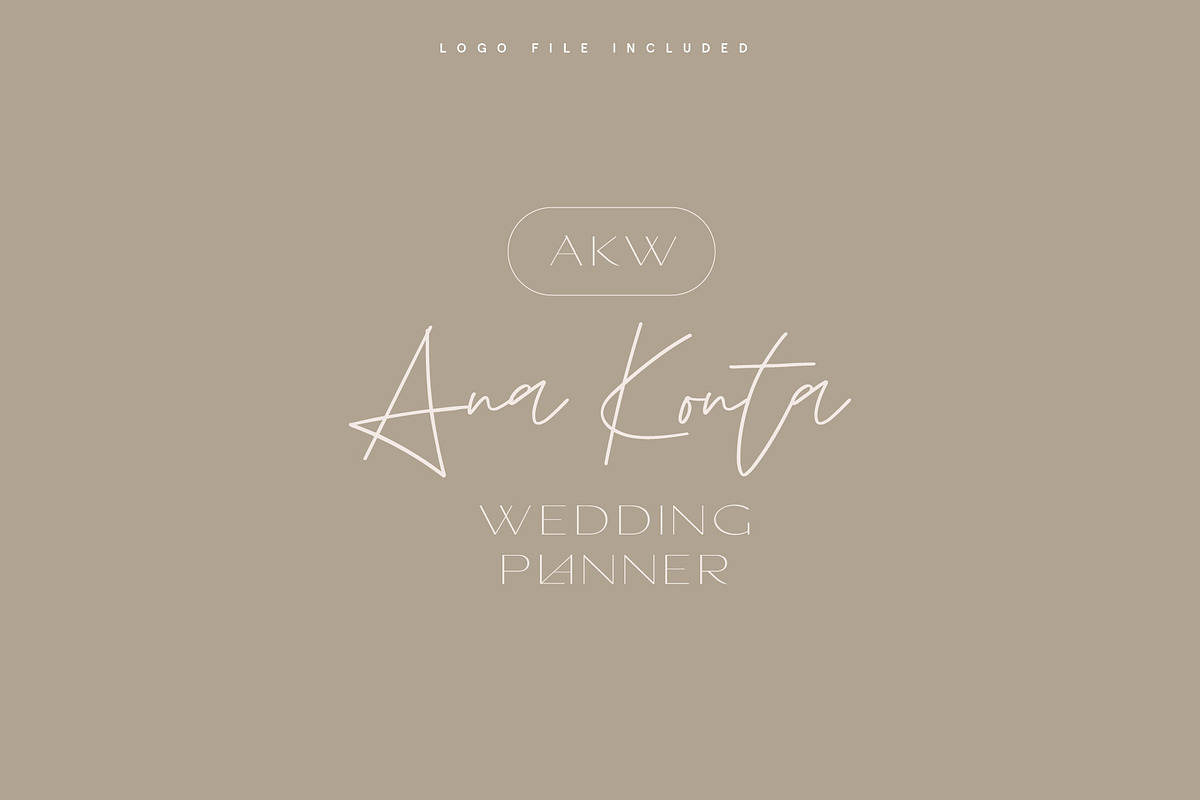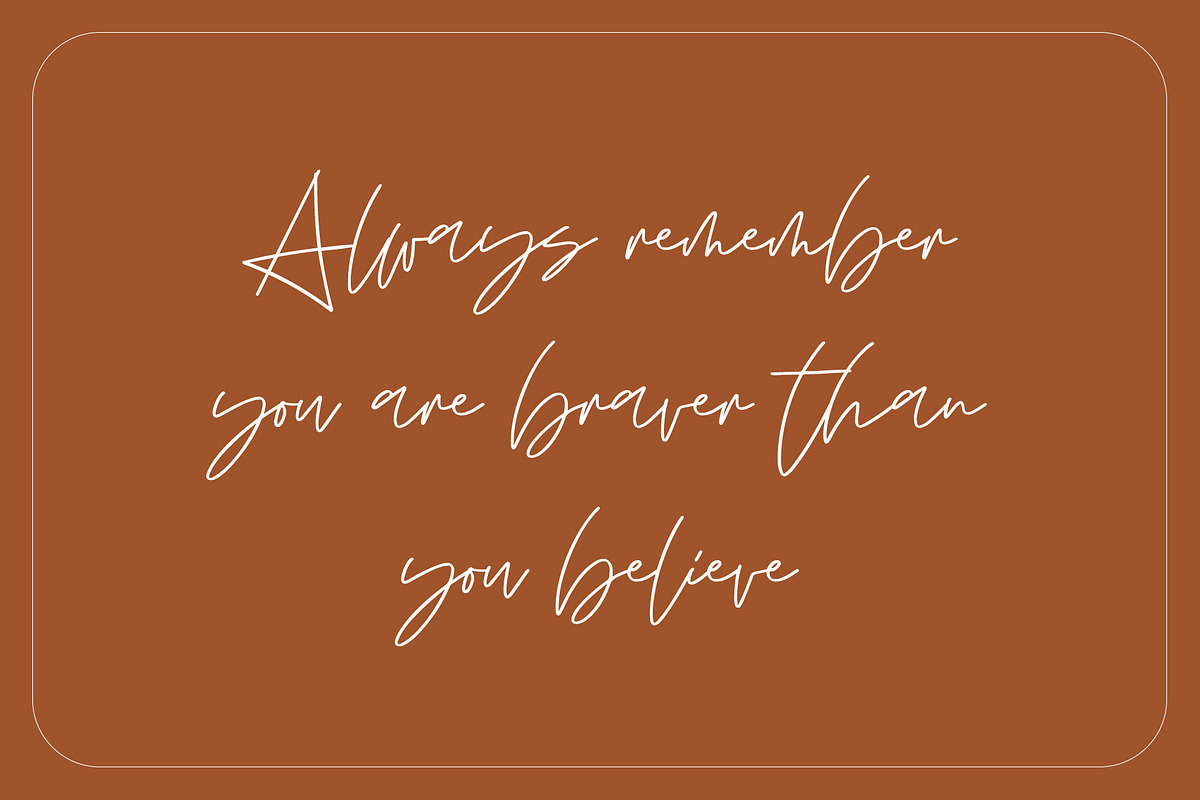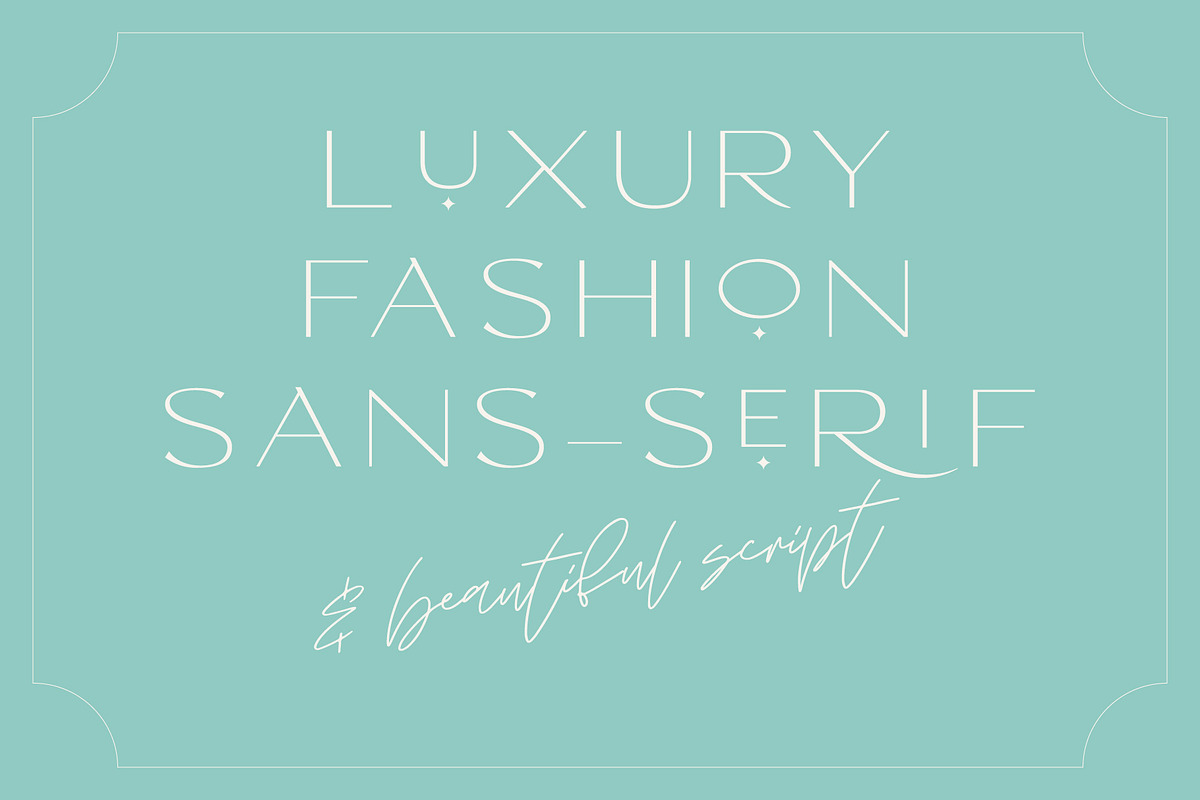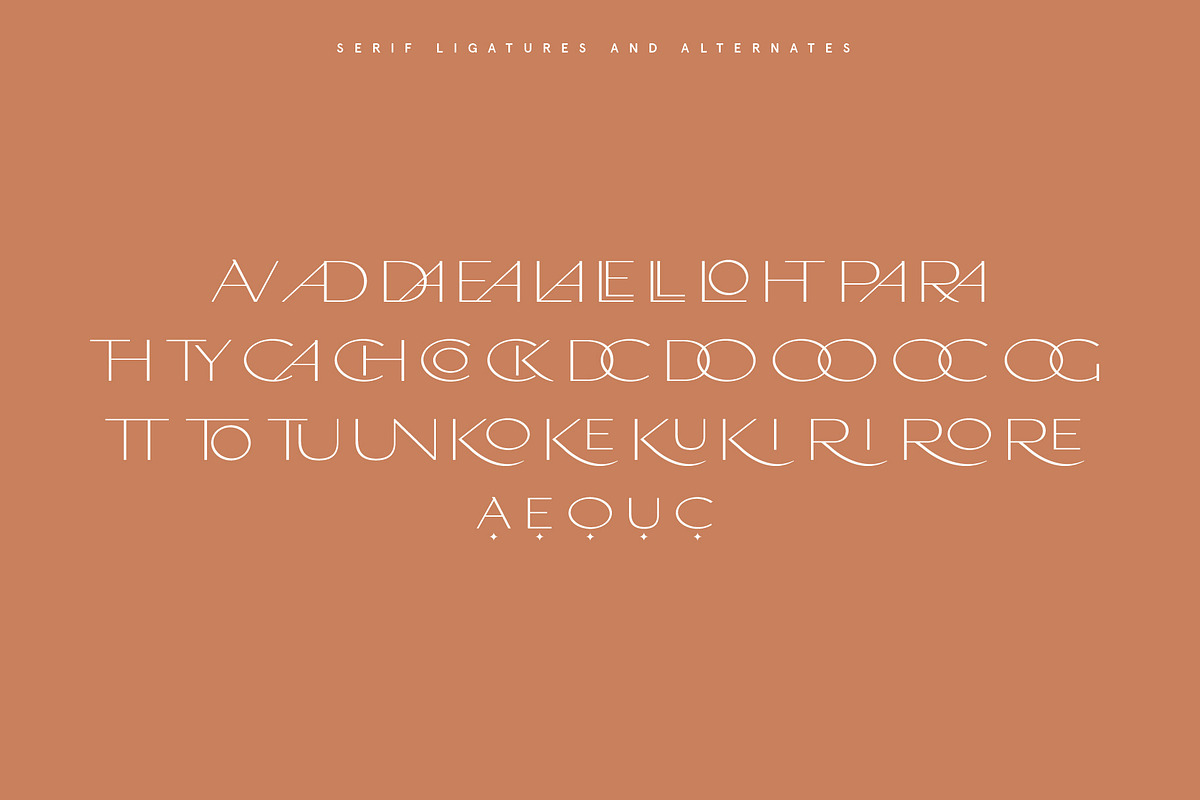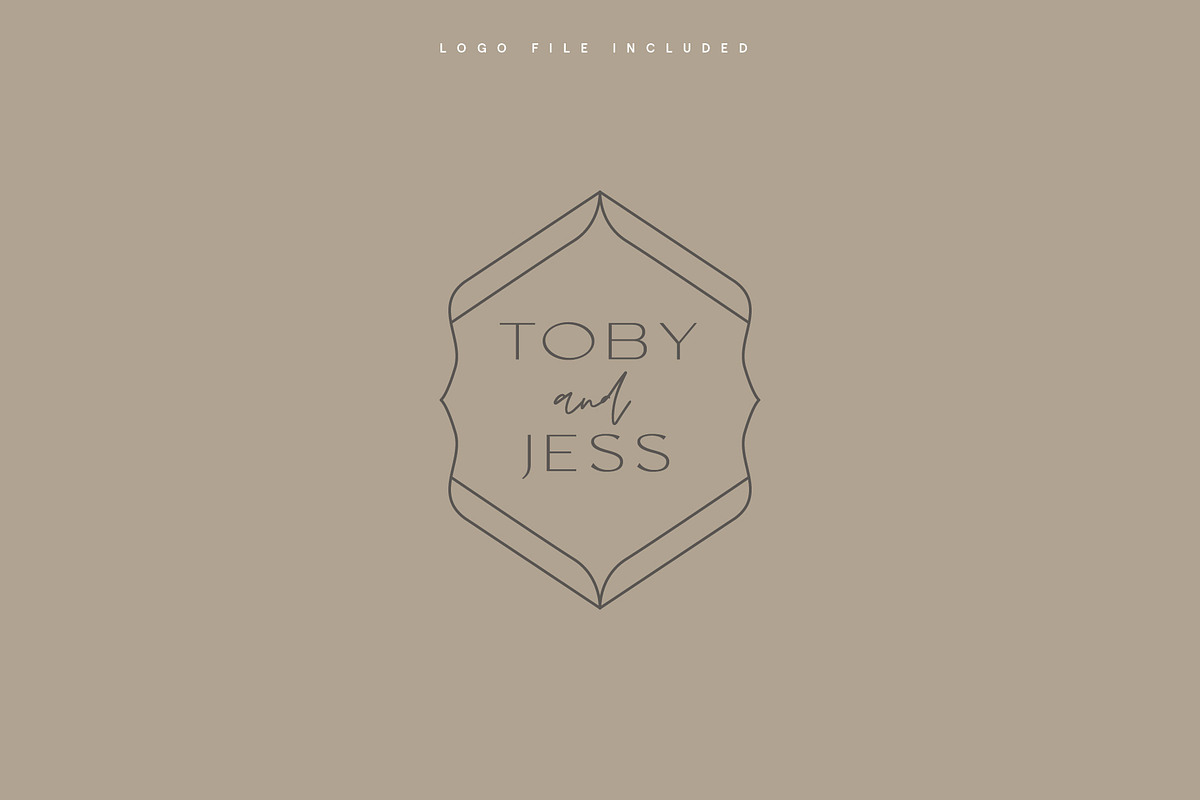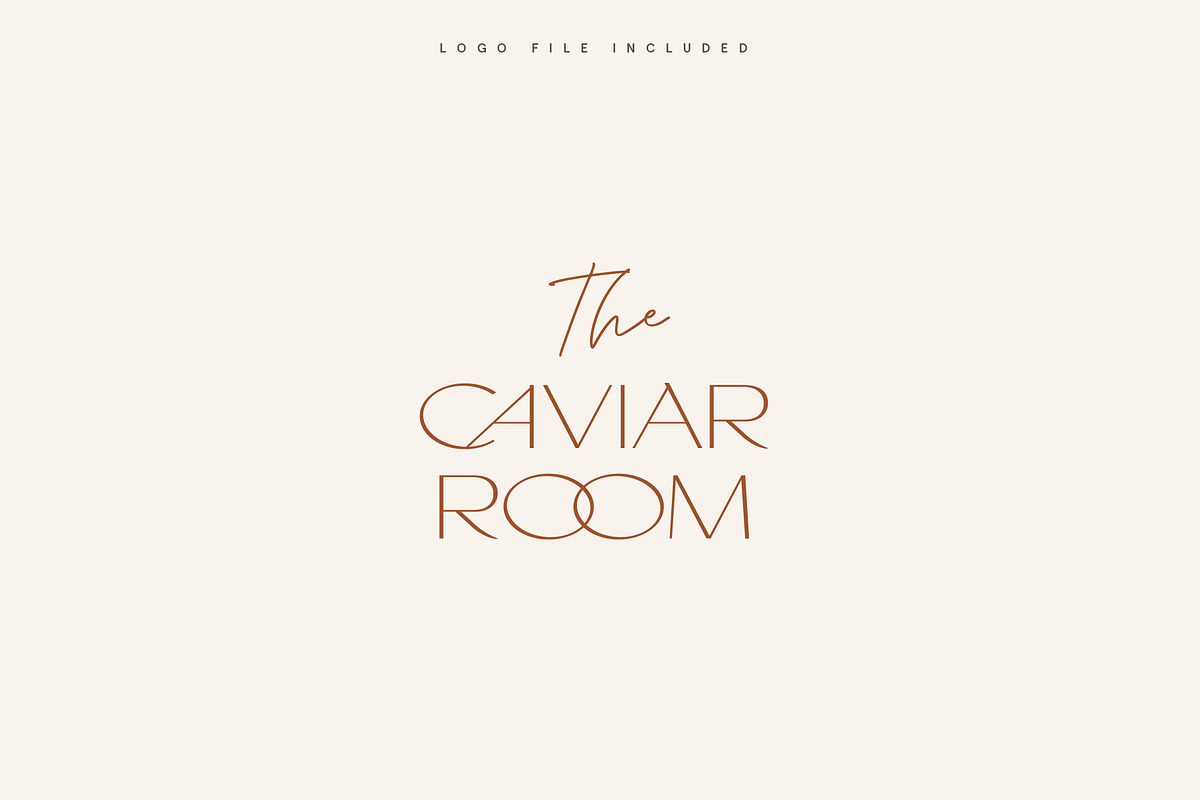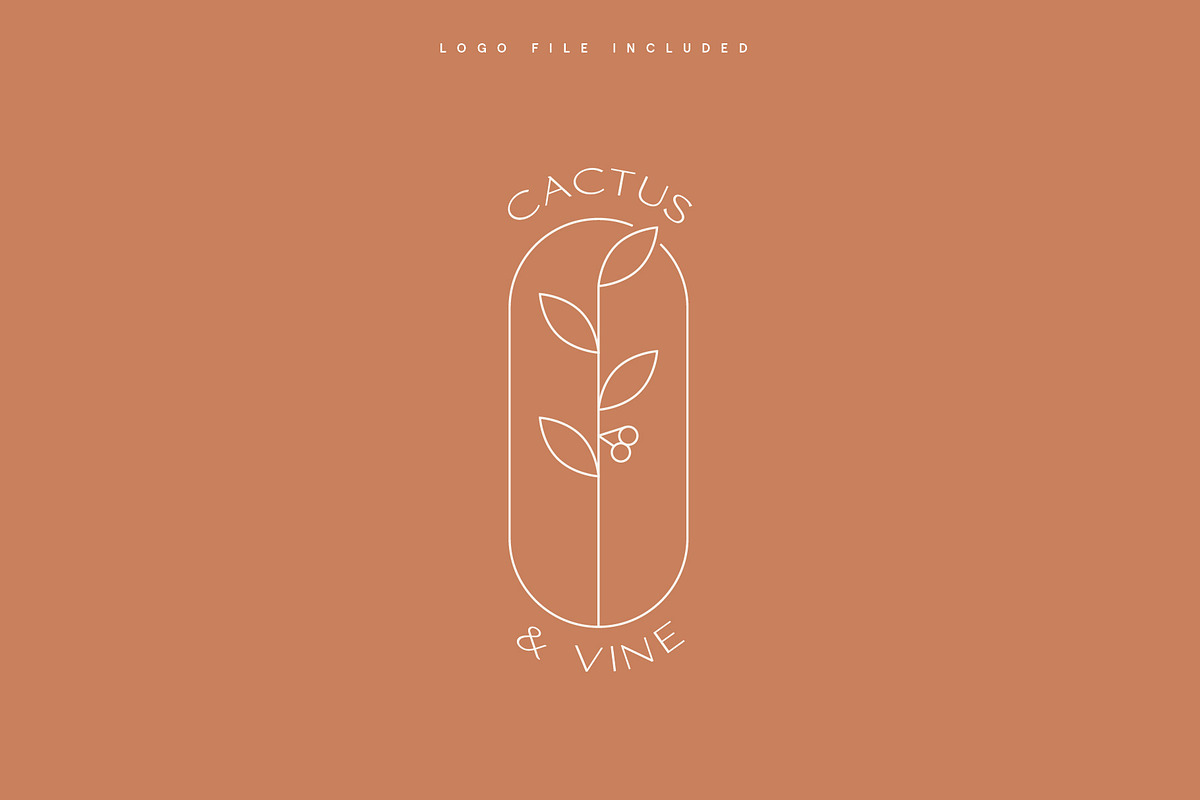
Seminyak Font Duo + Logo Bundle
Seminyak Font Duo and Logo Bundle comprises a classic pairing of an elegant script with a high-end fashion sans-serif font full of ligatures and stylistic alternates to offer incredible flexibility when using the font across branding, logos, stationery, magazine layouts, and social media posts.
Also included are 6 logo files (as shown in the visuals above) that use the fonts in this bundle and are fully editable to create a logo that is specific to your business.
Seminyak Sans-Serif (desktop and web font) – A contemporary, high-end and fashionable typeface that is all uppercase, with punctuation, multi-language support and a huge range of ligatures and stylistic alternates for you to discover and get creative with.
Seminyak Script (desktop and web font) – A modern, stylish hand-drawn script featuring lower and uppercase letters, punctuation, numerals and multi-language support. Also included are a number of ligatures to allow for a number of unique styles when using different letter pairings.
Seminyak Logos – 6 logo templates that have been specifically crafted for this bundle to work perfectly with the two typefaces. They are completely editable allowing you to customize as much as you need for your own logo needs.